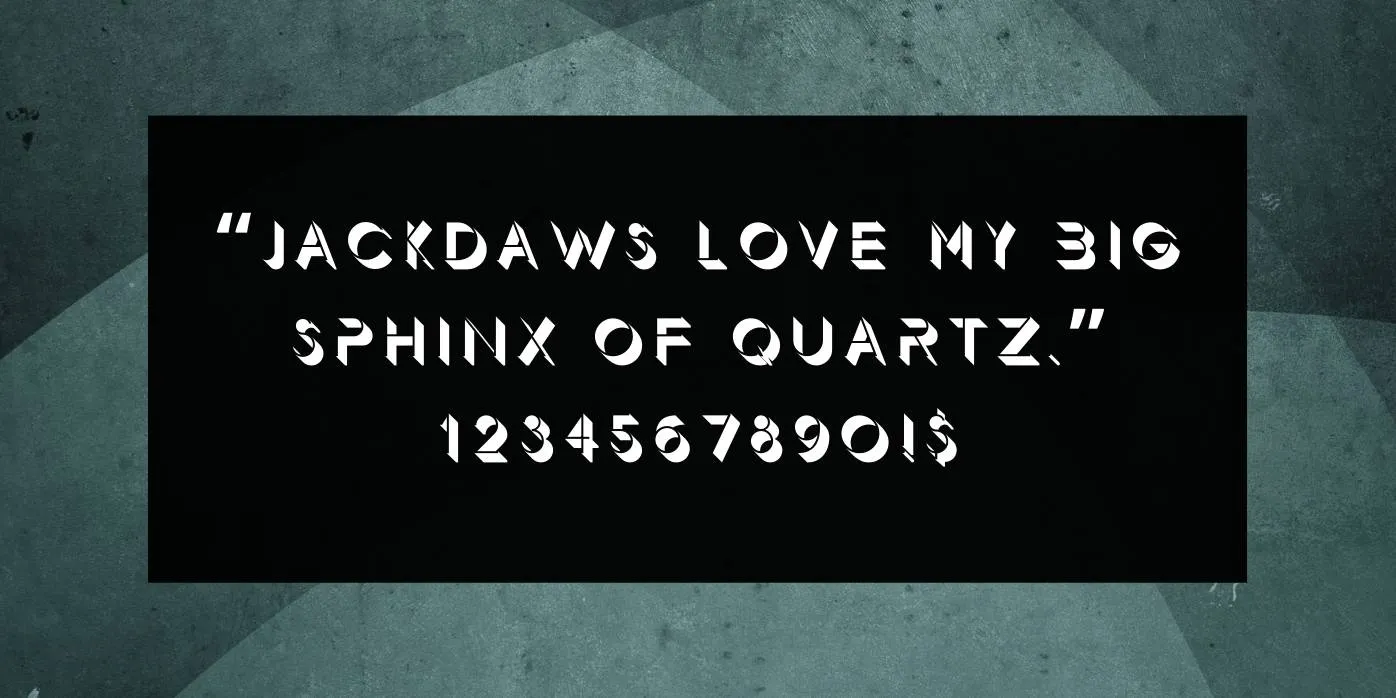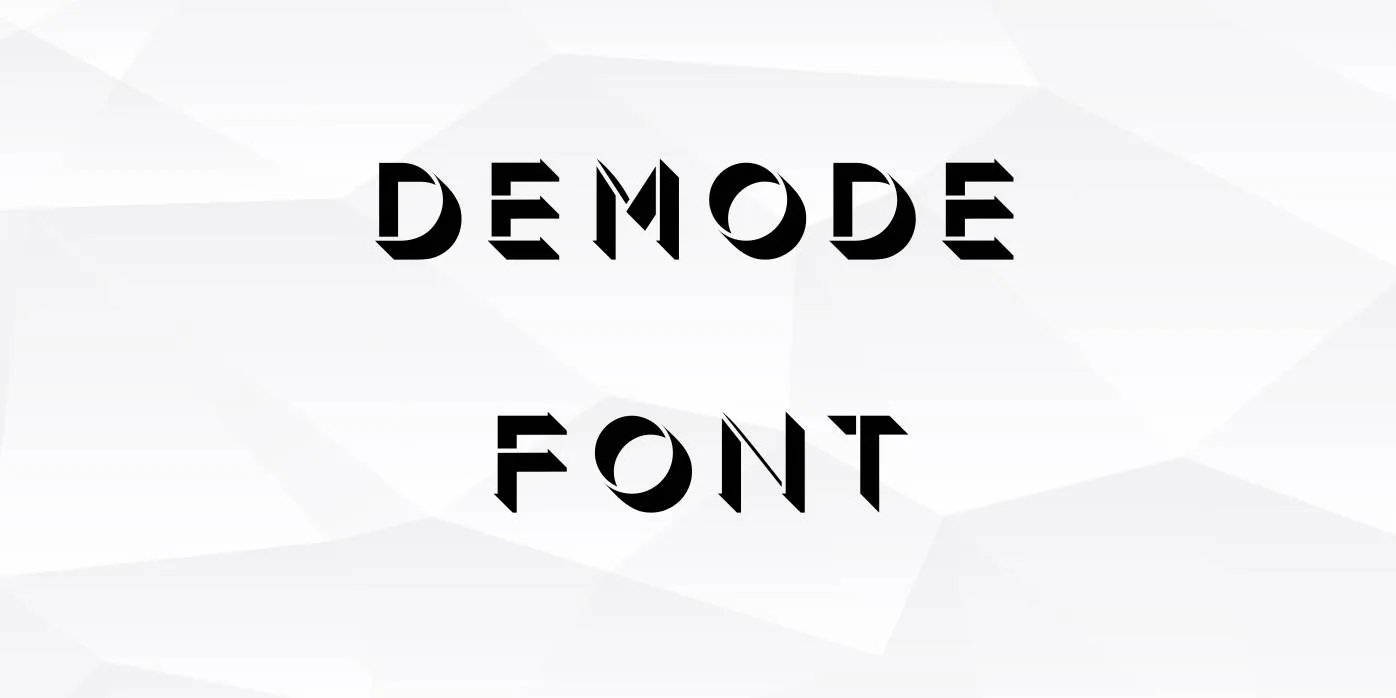
Demode Font
Demode Font is a retro type of font. Vladimir Nikolic is the designer of this retro typeface. There are 80 amazing glyphs for this typeface. There are two different styles for this typeface.
They are regular and negative styles. The characters of this typeface are amazing, bold, 3d, and highly readable. Moreover, you can get this typeface in both OpenType and TrueType font formats. You can utilize this retro type of font in web designing and graphic designs.